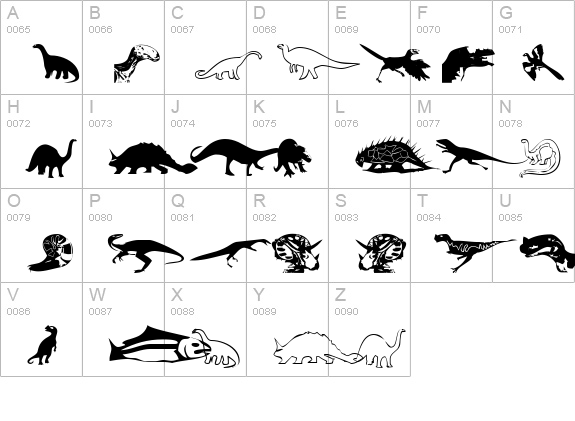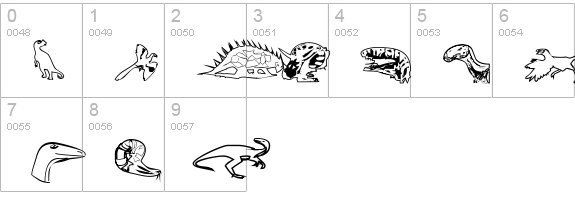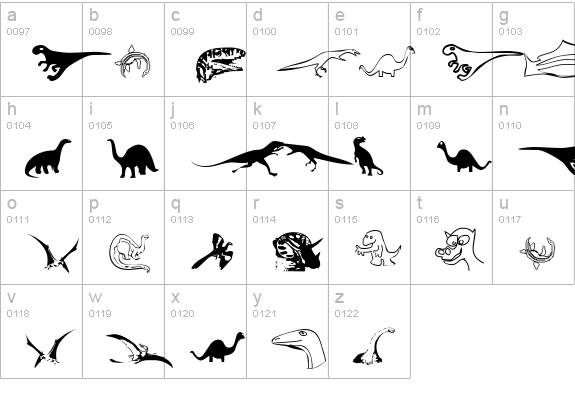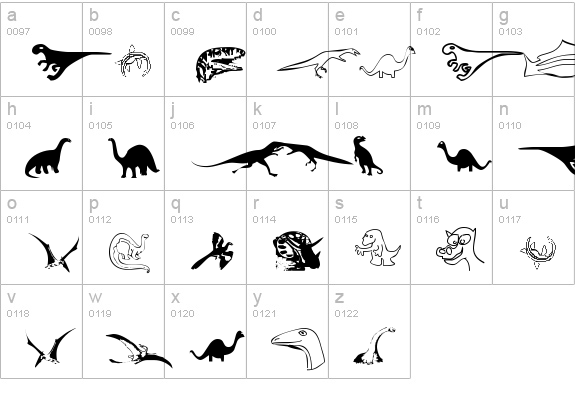
DinosoType Font Details
Introducing DinosoType font, a captivating typeface that captures the essence of prehistoric times with its bold and dynamic design. Inspired by the majestic dinosaurs of the past, DinosoType font brings a sense of power and strength to your projects while adding a touch of whimsy and playfulness. This one-of-a-kind font features intricate details and sharp edges that make it stand out from the crowd. Whether you're designing a poster, logo, or branding materials, DinosoType font is sure to make a statement and leave a lasting impression. The best part? DinosoType font is completely free to download at FontsMarket.com! So go ahead and unleash your creativity with this unique and versatile typeface that is sure to take your designs to the next level.